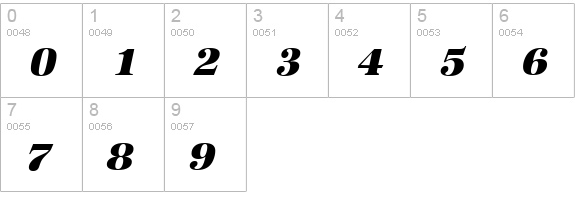
AntiquaStd-Heavy-Italic is a heavy, high-impact, italic variant in the AntiquaStd typeface family \xE2\x80\x94 well suited to high-impact headlines, posters, and display advertising.
The AntiquaStd-Heavy-Italic font exudes a bold and elegant charm, perfect for adding a touch of sophistication to any design project. Its heavy weight and italicized styling make a strong statement while maintaining a sense of grace and refinement. This versatile typeface is ideal for creating eye-catching headlines, logos, and titles that demand attention. And the best part? AntiquaStd-Heavy-Italic is available for free download at FontsMarket.com, making it easily accessible for designers looking to elevate their work with a touch of timeless flair. Embrace the beauty and versatility of this stunning font today and watch your designs come to life with style and sophistication.